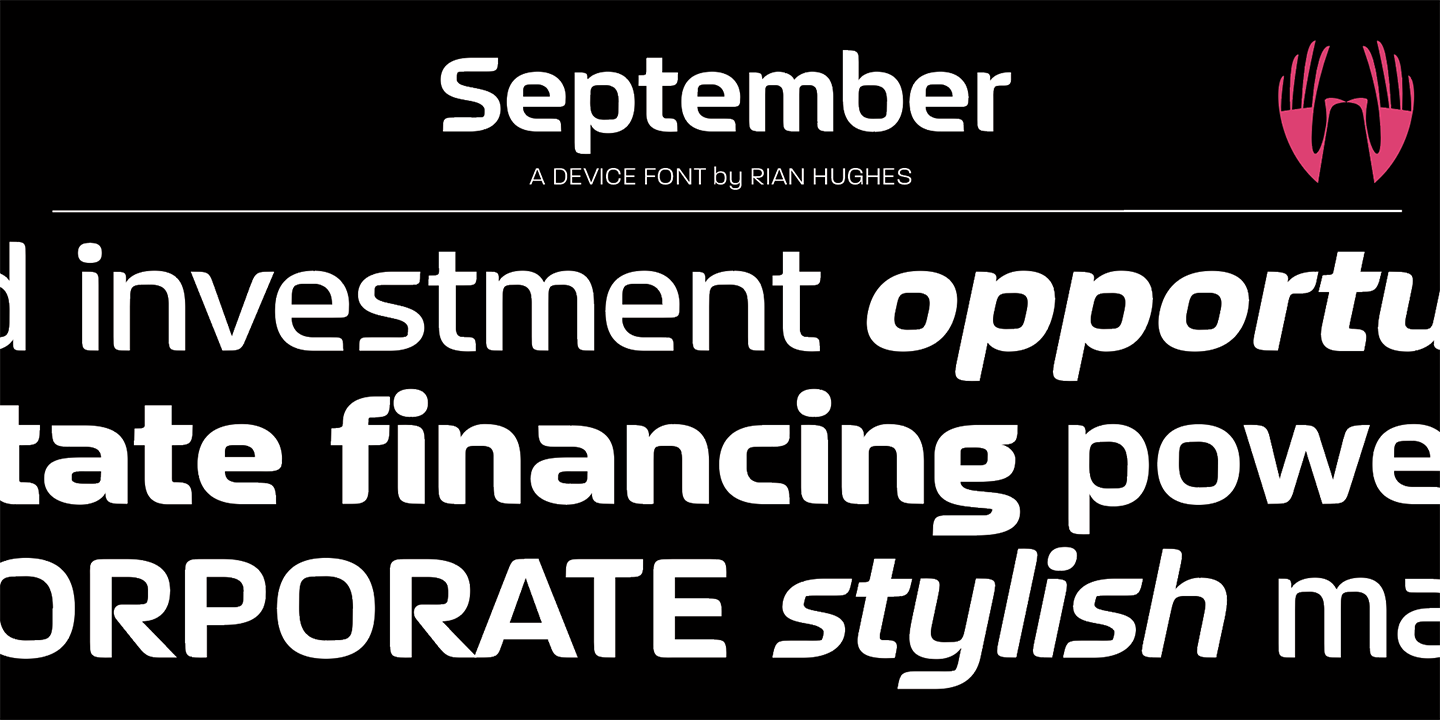
September Font is perfect for autumn-themed designs, seasonal marketing campaigns, harvest festival materials, cozy café branding, fall fashion magazines, back-to-school projects, warm hospitality branding, rustic wedding invitations, seasonal product packaging, and any projects that capture the nostalgic warmth of autumn months.
What makes September Font exciting is its ability to evoke the cozy, nostalgic feeling of early autumn with letterforms that embody warmth, comfort, and seasonal transition. This charming typeface features gentle curves and inviting proportions that create an atmosphere of familiarity and seasonal comfort, reminiscent of crisp air, falling leaves, and golden hour light. The font's seasonal character makes it perfect for brands wanting to connect with audiences through shared memories and seasonal emotions.
September Font family includes warm seasonal variations featuring light, regular, medium, and bold weights. The font family also offers italic versions with enhanced flowing characteristics, along with condensed and extended options for different layout needs. Special features include autumn-themed decorative elements, seasonal ornaments, and harvest-inspired dingbats that complement the main typeface perfectly.
Embrace seasonal charm with September Font Free Download and wrap your designs in the golden warmth of autumn's embrace. This versatile typeface captures the essence of transitional seasons while maintaining excellent readability across all applications, from intimate print pieces to welcoming digital displays. Download September Font today and transform your creative projects with typography that celebrates the beauty of changing seasons, creating emotional connections that feel like coming home.